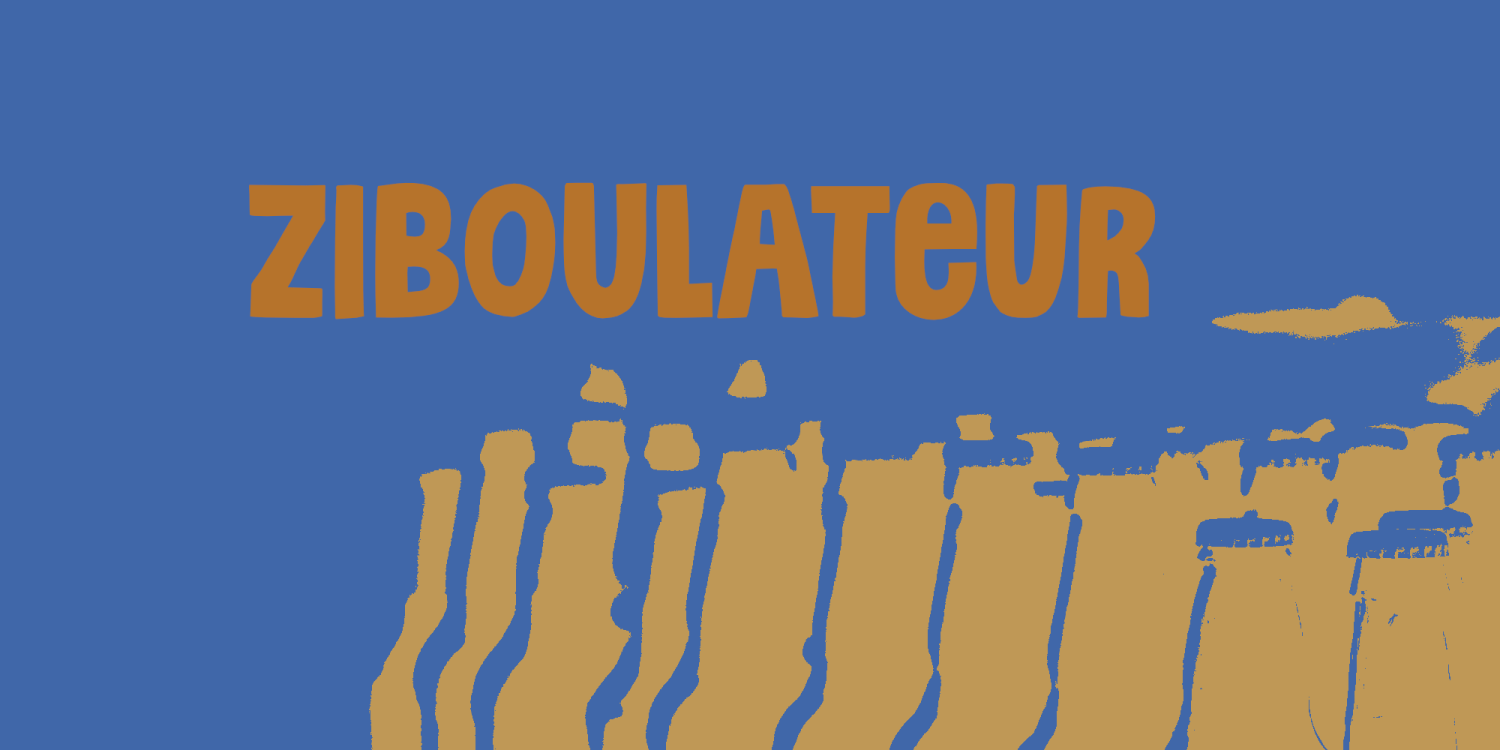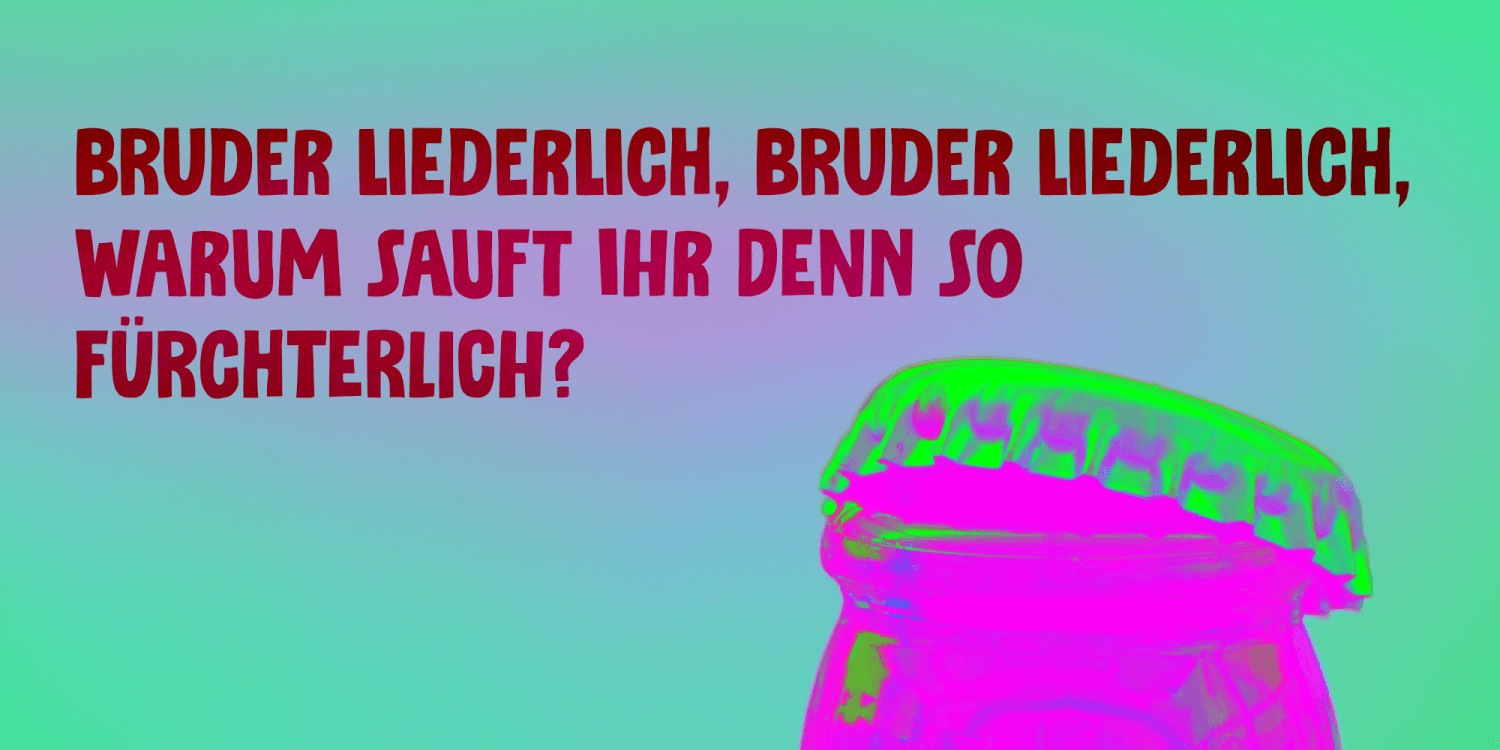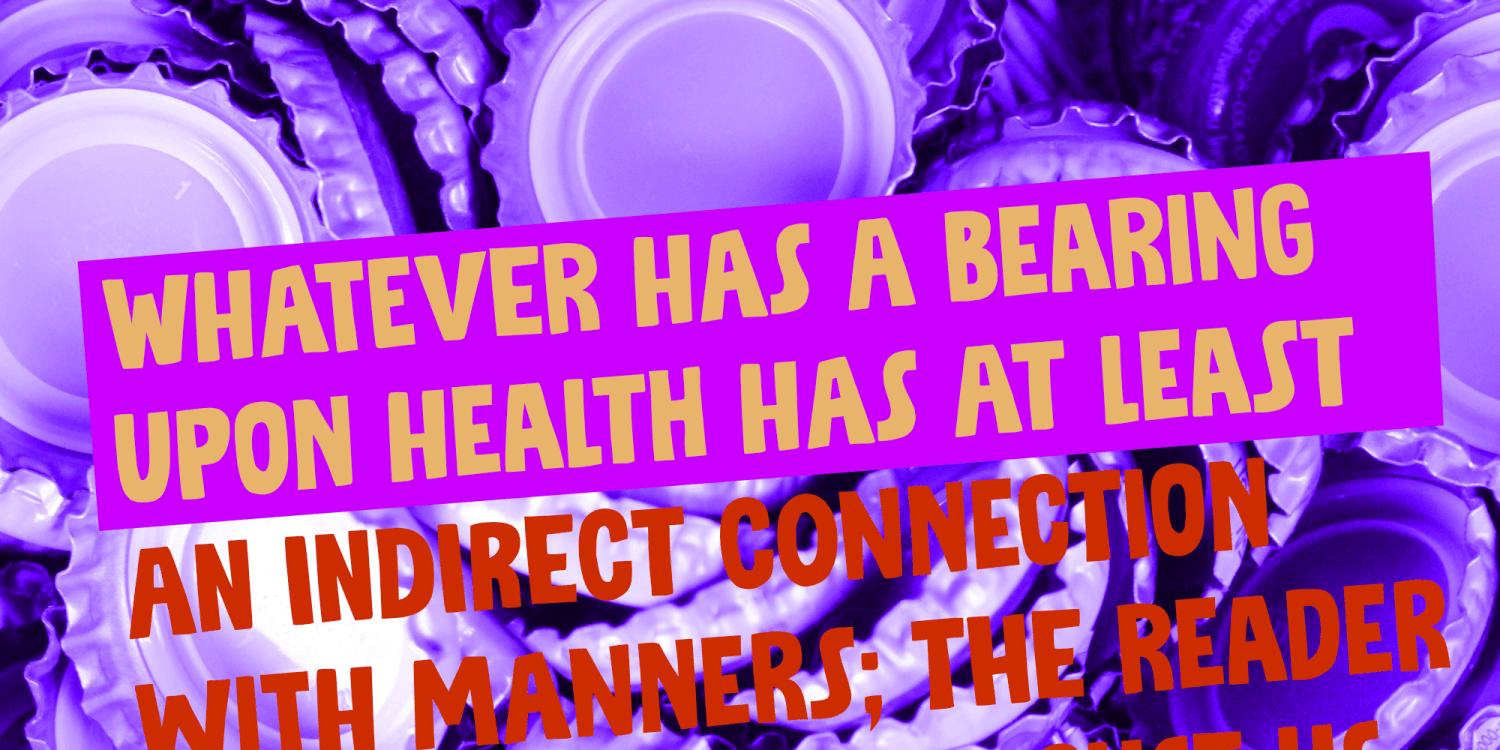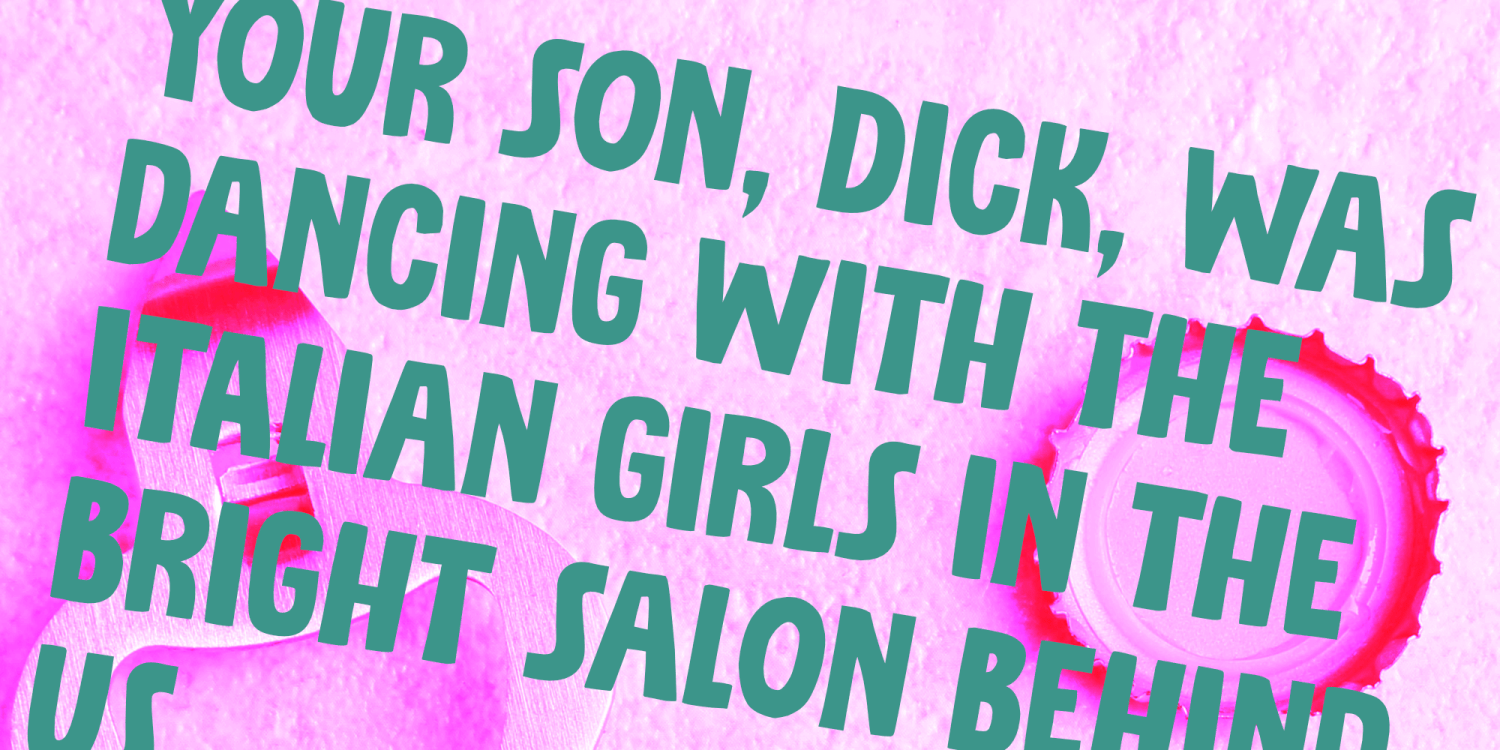
Ziboulateur
Ziboulateur is French slang for bottle opener. The word consists of two parts: Zibula (a word from Congo-Brazzaville meaning: 'to decork?) and the French suffix -ateur. I thought this rather creative word would be a good name for this particular font!
Ziboulateur is a handmade, all caps display font. It comes with extensive language support, including Sami and Vietnamese.